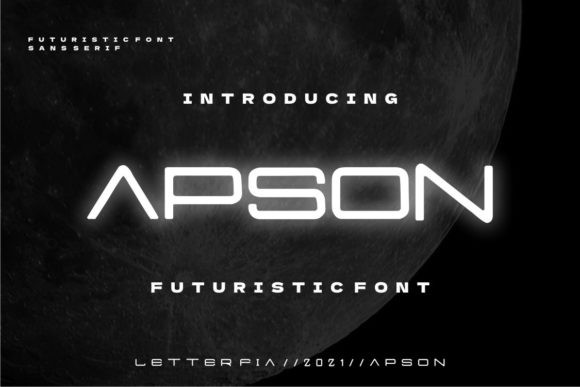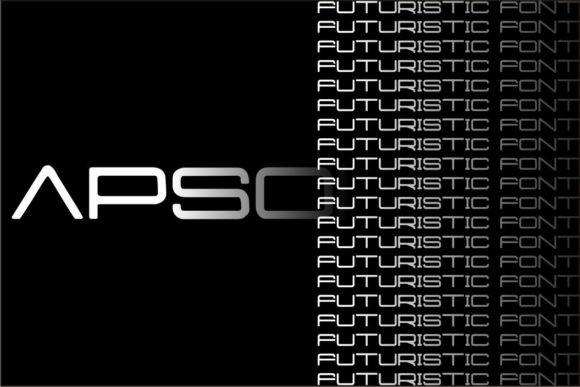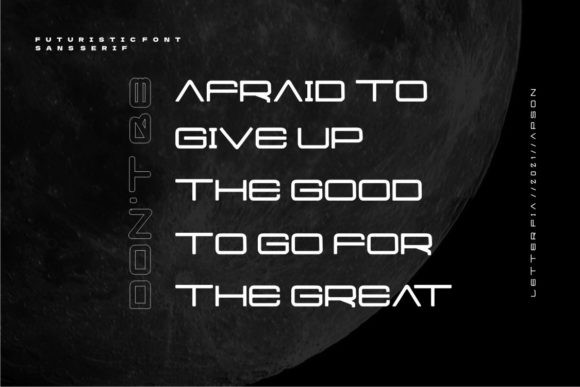
Apson Font
Apson is a cool and futuristic display font. This font is ideal for writing web designs, business cards, or pretty much anything else that requires a unique touch.